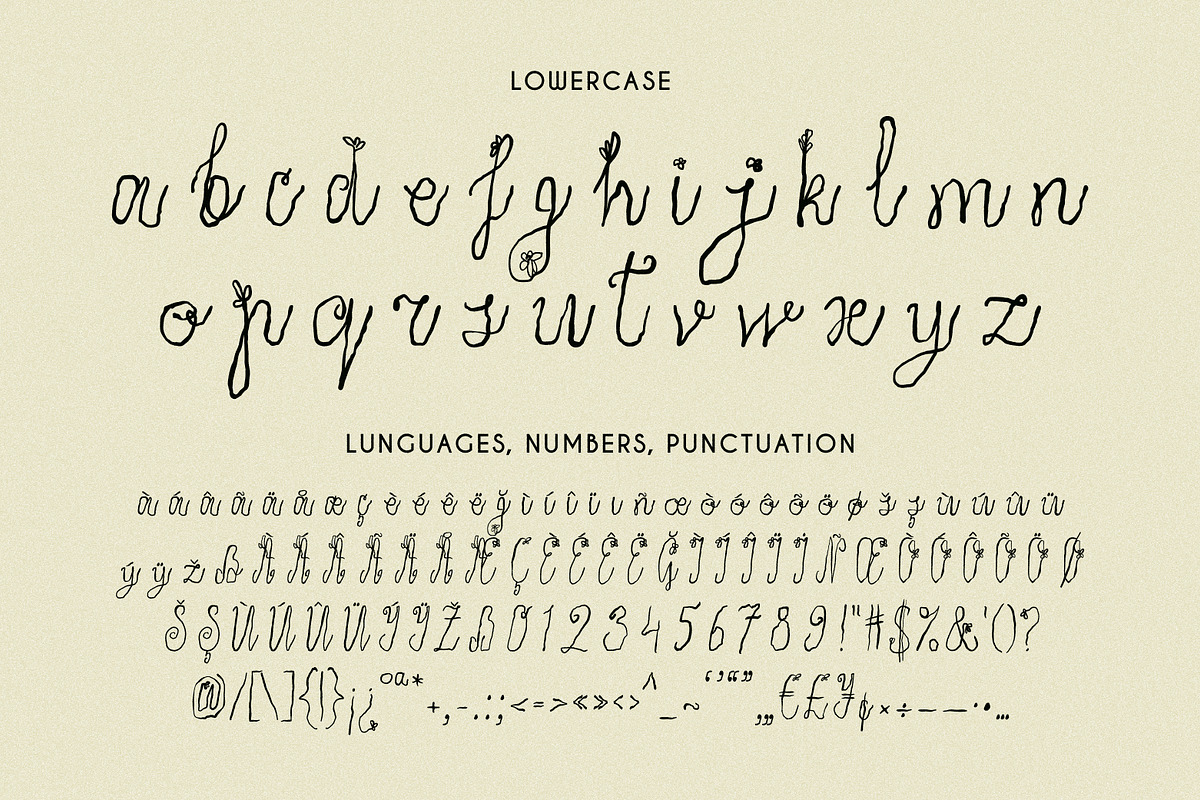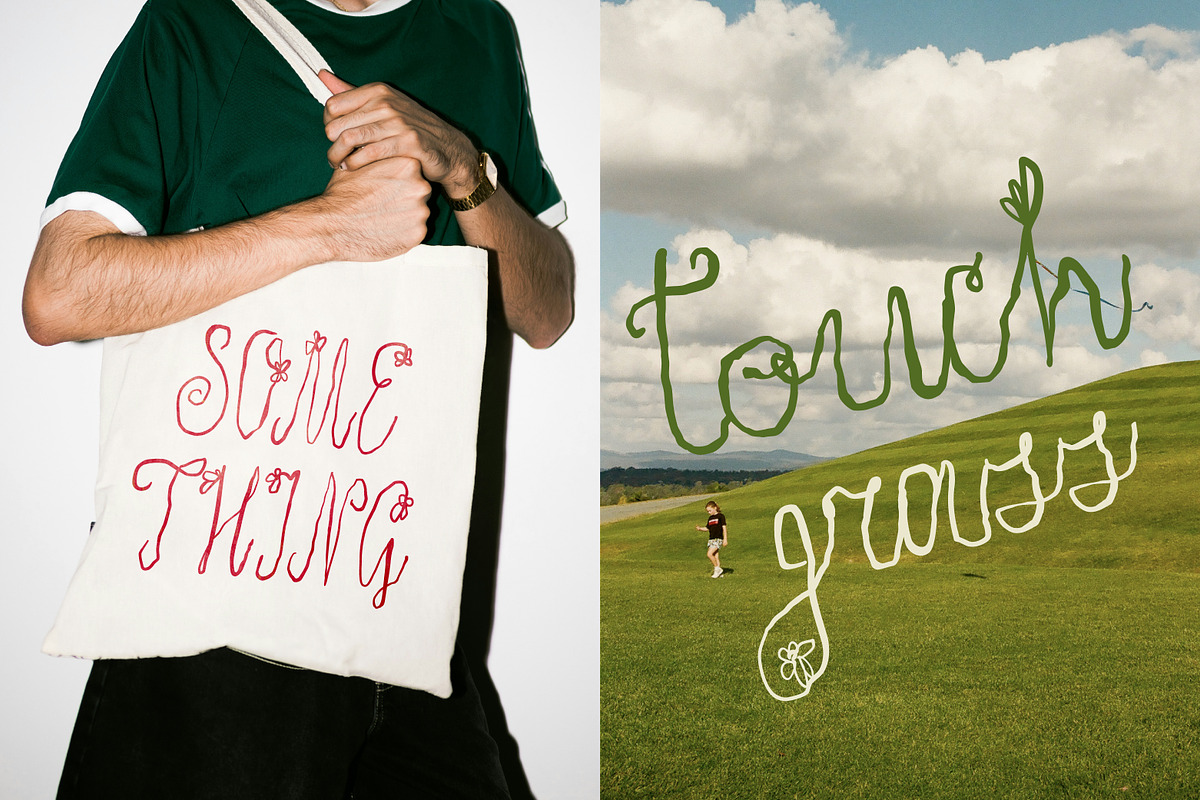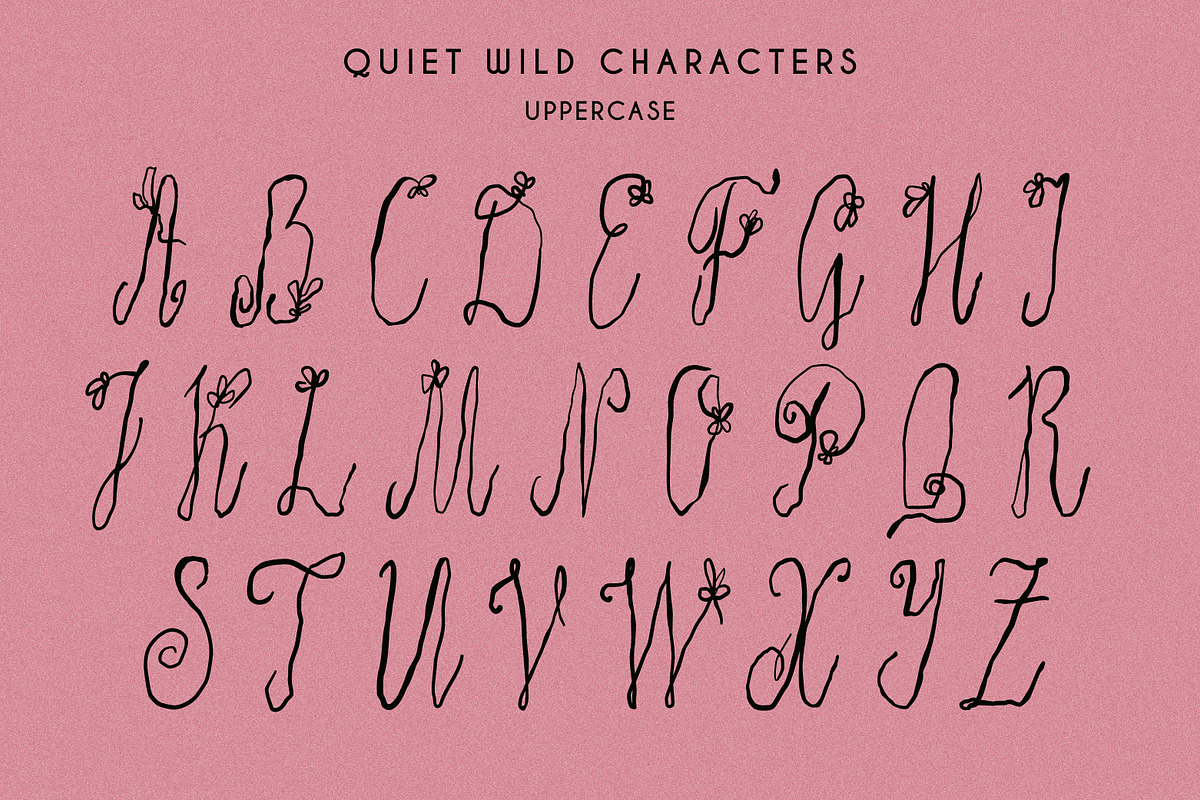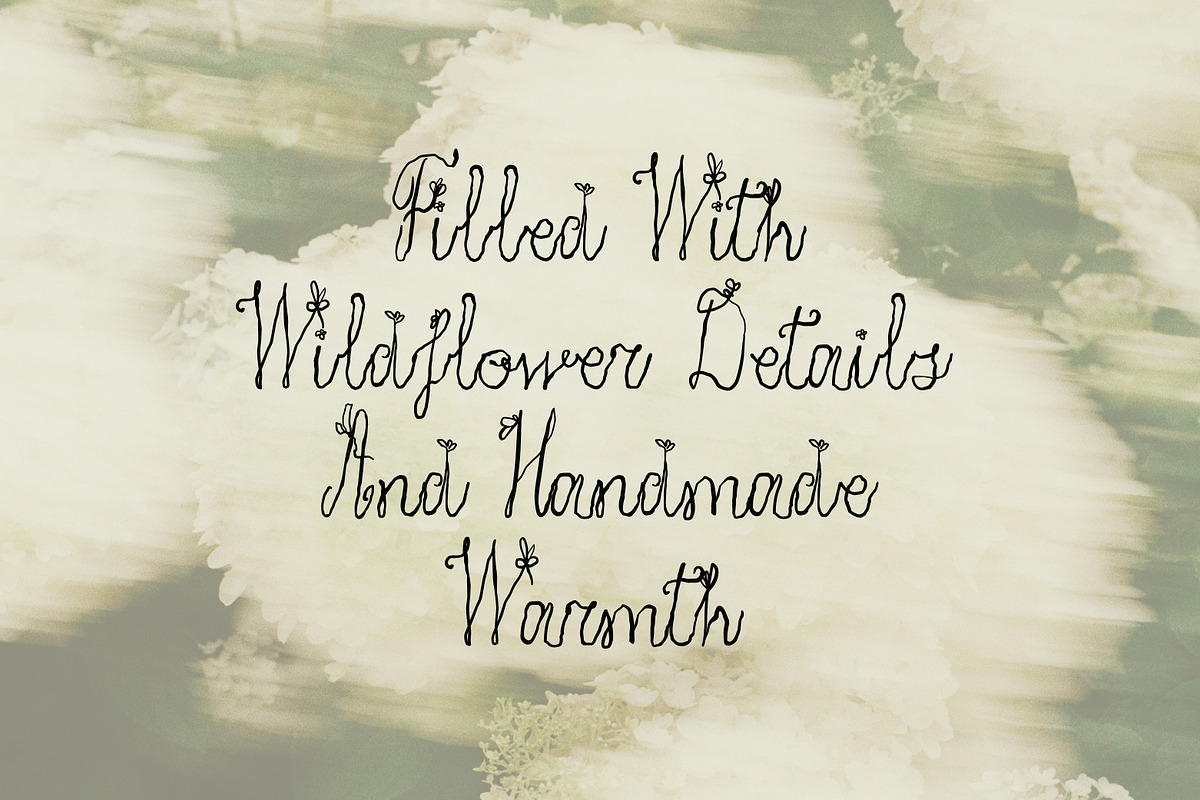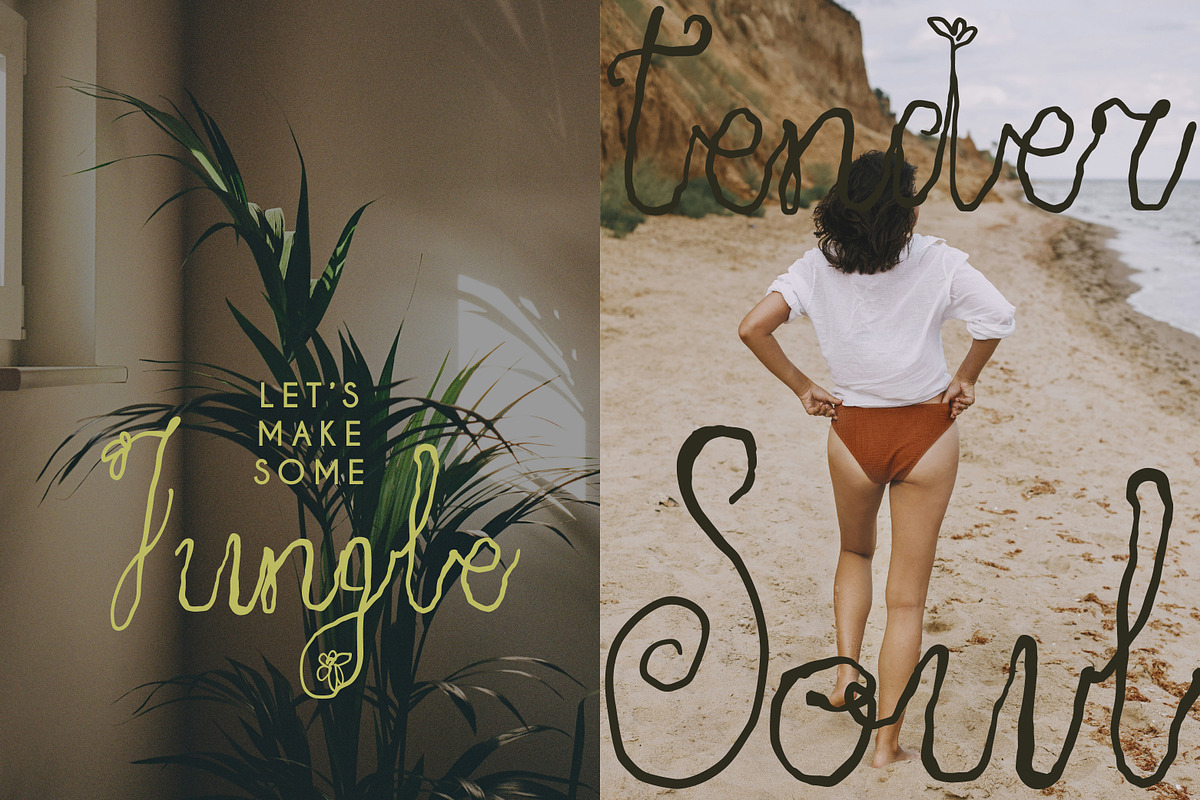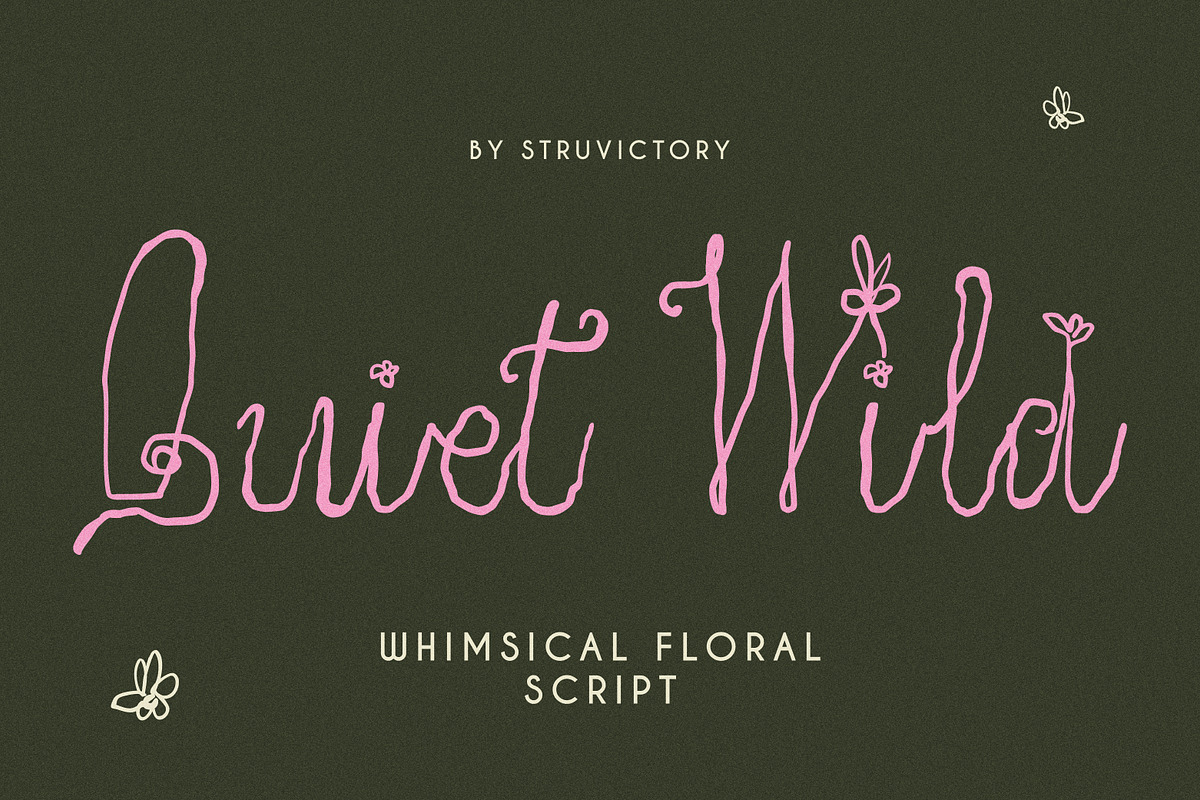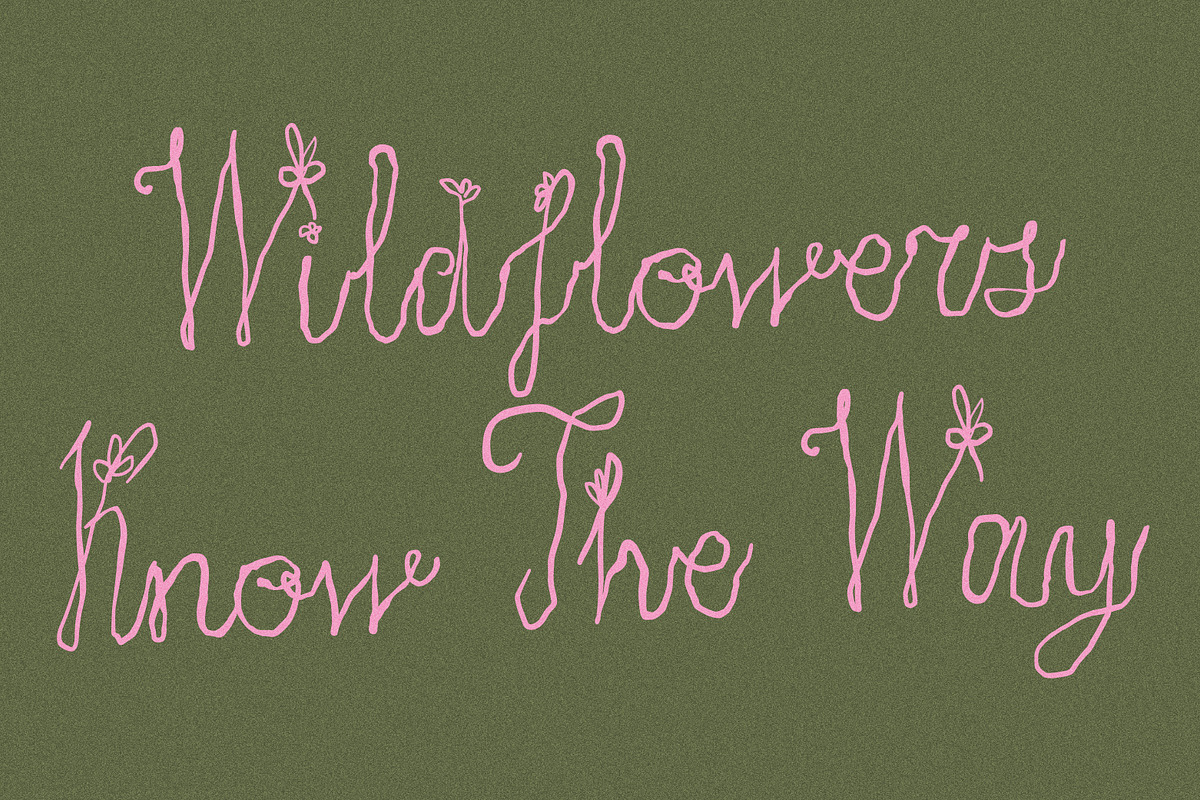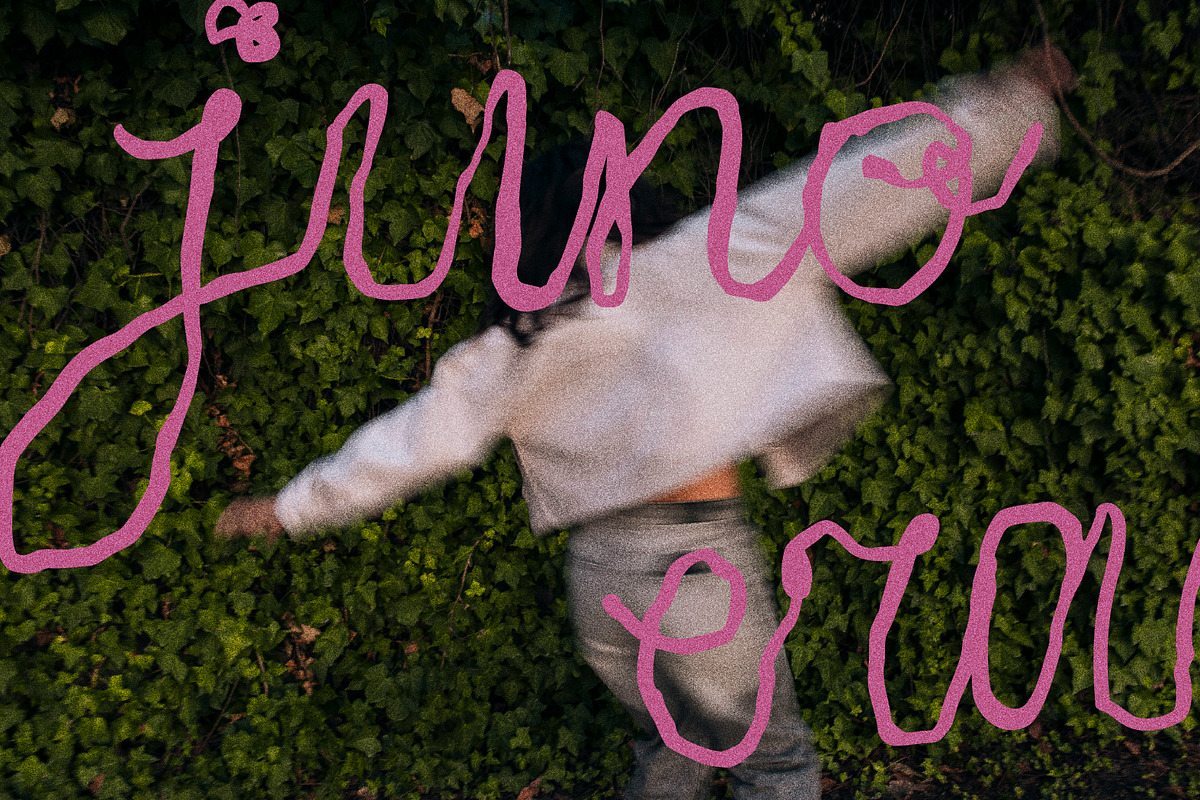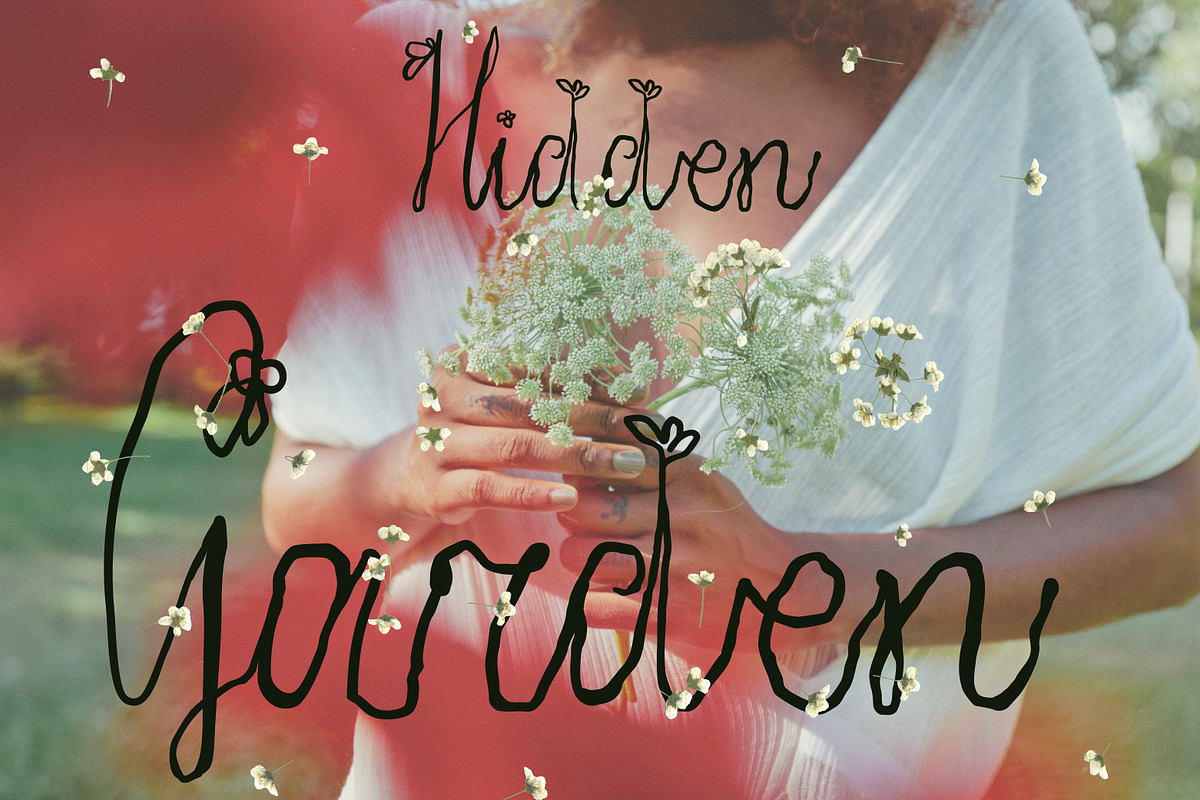
Quiet Wild Whimsical Floral Script
Quiet Wild is a whimsical handwritten script inspired by hidden meadows, wildflowers, and the beauty of imperfect things. Delicate floral details, wandering curves, and charming handmade lines give every letter its own personality. Designed to feel organic, playful, and a little untamed, this font is perfect for branding, packaging, invitations, social media, book covers, quotes, apparel, and creative projects that need a touch of botanical magic.